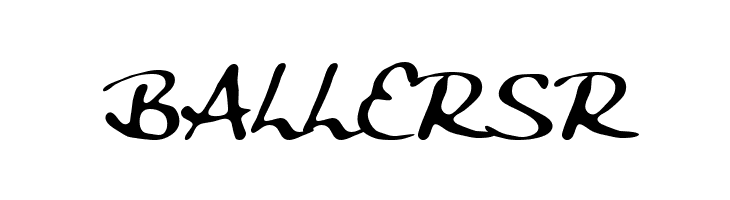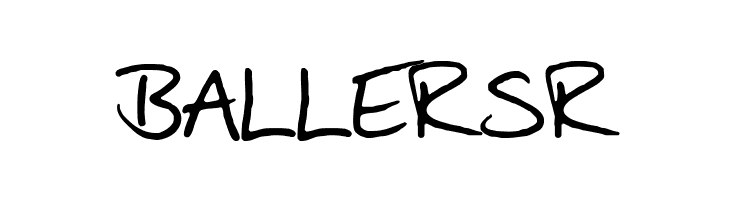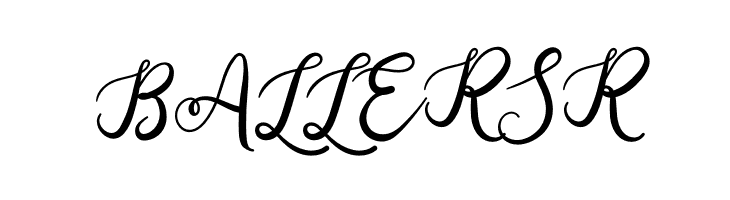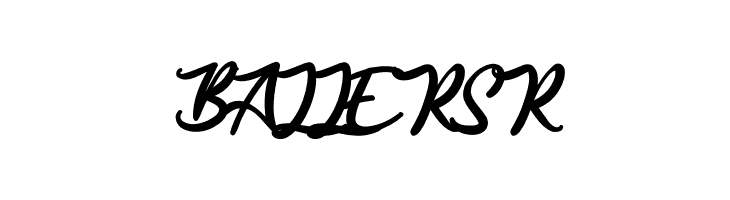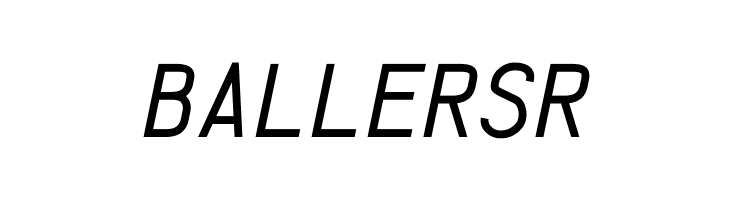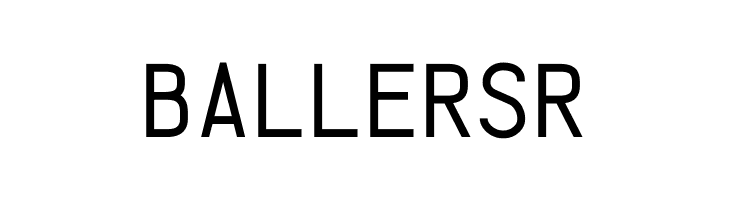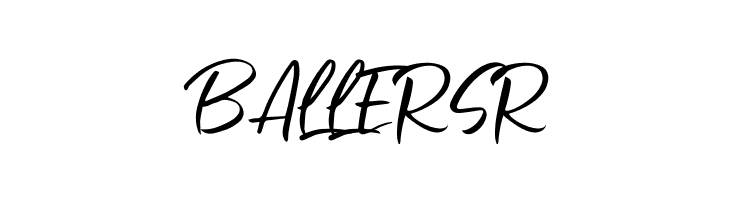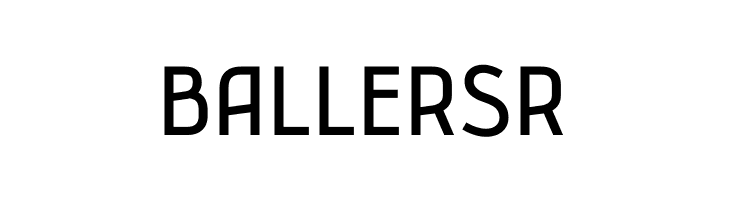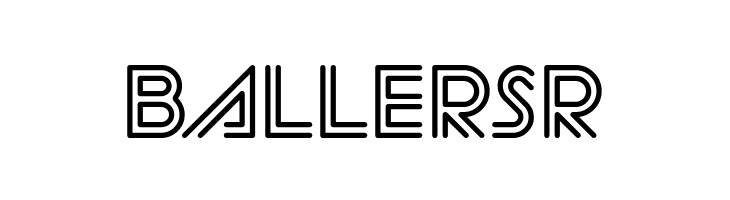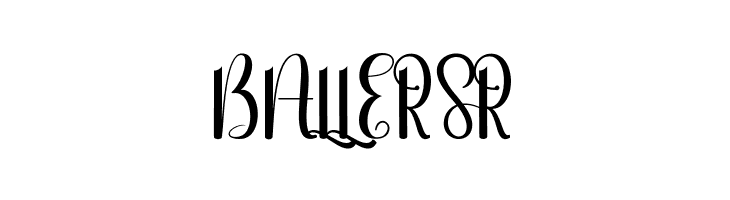
• Anjaniya
A modern, elegant script font with intricate loops and smooth curves.
• Anjany Sallentiny
A whimsical, handwritten font with flowing, interconnected letters and dynamic strokes.
• Anjara
A modern, geometric sans-serif font with excellent readability.
• Anjasmoro
( Sudar Moko )
A modern, geometric sans-serif font with smooth, rounded edges.
• Anjel Script
A graceful and elegant script font with fluid, cursive strokes.
• Anjelica Script
A flowing, elegant script font with interconnected cursive letters.
• Anjelica Script
A flowing, cursive script font with elegant, interconnected characters.
• Anjelika Rose
( Fonts by Vanessa Bays - bythebutterfly.com )
• Anjelika Rose Hollow
( Fonts by Vanessa Bays - bythebutterfly.com )
A playful, hollow font with rounded characters and a whimsical style.
• Anjelika Rose Thin
( Fonts by Vanessa Bays - bythebutterfly.com )
A playful, thin handwritten font with a whimsical and casual style.
• Anjellic Dafont
A modern, elegant script font with flowing cursive letterforms.
• Anjellic Sans
A bold, playful handwritten font with rounded, slightly irregular letterforms.
• Anjellie
A playful and elegant script font with flowing, cursive letterforms.
• Anjhay
A dynamic, fluid script font with an elegant, handwritten style.
• Anjhay
A lively, cursive font with a handwritten feel, perfect for creative projects.
• anji Regular
( Fonts by Nabila )